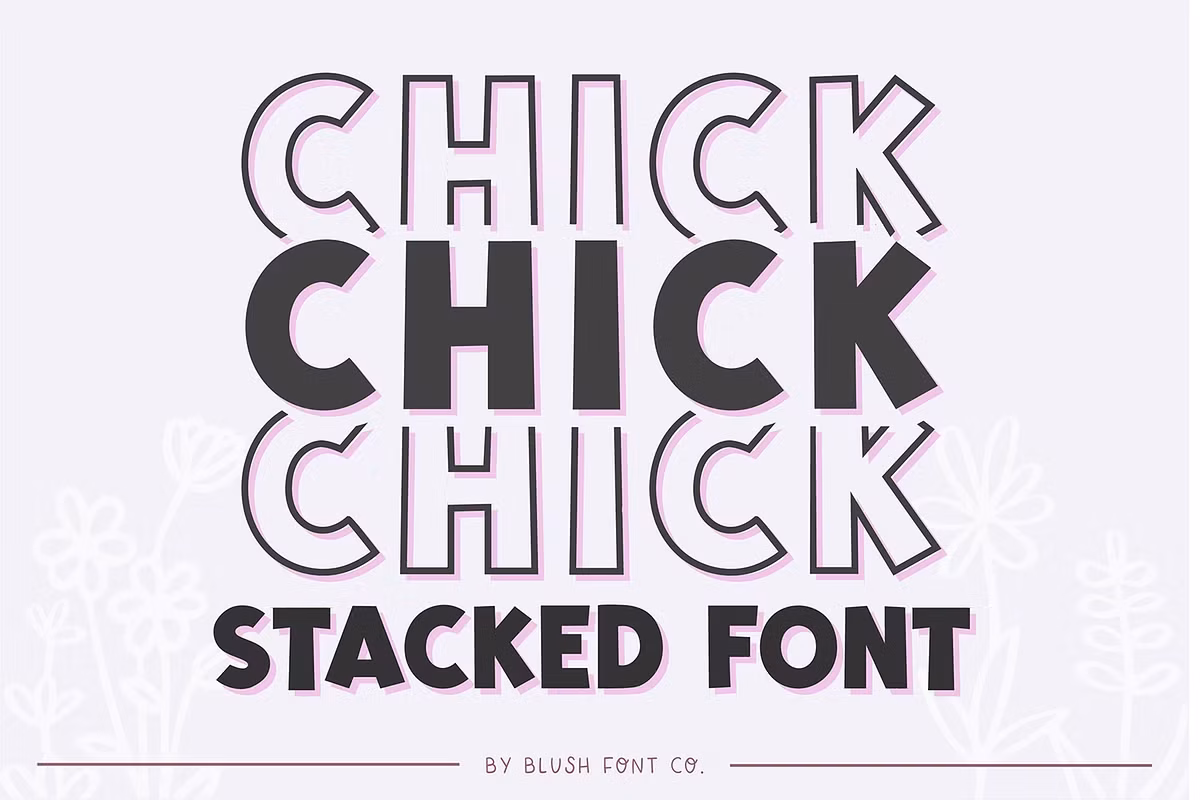
CHICK STACKED Trendy Block Font Free Download
CHICK STACKED Trendy Block Font Free Download is a bold, eye-catching typeface designed to make a statement. With its chunky letterforms, modern geometry, and playful stacked layout, this font is perfect for headlines, poster designs, social media graphics, and trendy branding projects. It's built for creatives who want their message to be loud, clear, and full of personality.
This block-style font is more than just bold—it’s stylish, fresh, and packed with attitude. CHICK STACKED Trendy Block Font Free Download shines in both digital and print formats, offering high readability while maintaining its fun, fashion-forward appeal. Whether you're designing for a youth brand, an event promo, or a streetwear label, this font delivers instant impact.